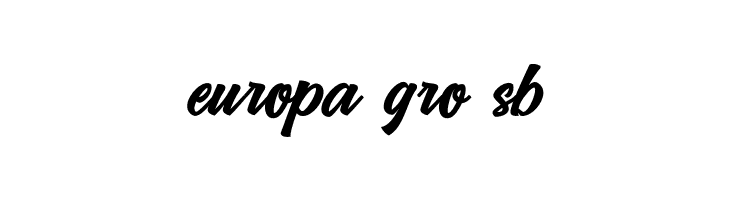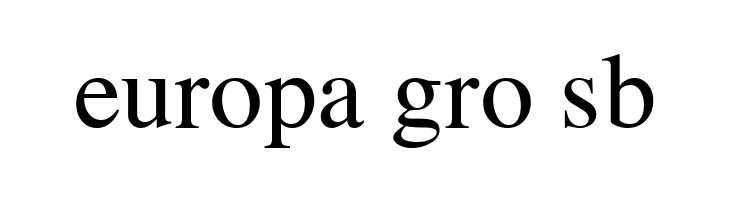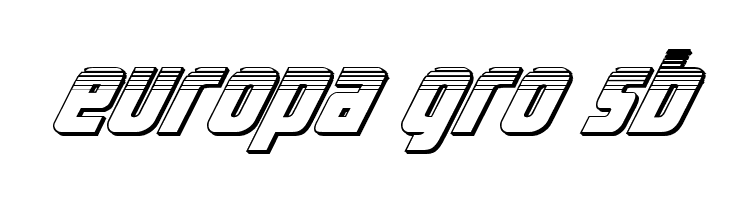
• Voyage Fantastique Platinum
A bold, three-dimensional font with a futuristic and dynamic style.
A bold, geometric font with a modern and assertive style.
• Voyager NBP
• Voyeur Regular
A bold, playful font with thick, rounded edges and a strong outline.
• Voynich
A decorative and mystical font with bold, flowing characters and unique embellishments.
• Voynich Hollow
A mysterious, hollow font with an ancient, coded appearance.
• Voyntea Personal Use
An elegant script font with intricate swirls and high contrast strokes.
• Vracter_Work
A stylish cursive script font with elegant, flowing strokes.
• Vrångö
A playful, decorative font with circular patterns forming each character.
• Vrångö
A playful, bubble-like decorative font with interconnected circular elements.
• Vraoum
A bold, dynamic font with a distorted, motion-inspired style.
• VremenaGrotesk
• VremenaGroteskBold
A bold, modern sans-serif typeface with a clean and geometric design.
• VremenaGroteskBoldItalic
A bold, italic sans-serif typeface with a modern and dynamic style.
• VremenaGroteskBook
• VremenaGroteskBookItalic
A modern, italic sans-serif font with a clean and dynamic appearance.
• VremenaGroteskItalic
A modern, italicized font with clean lines and a professional appearance.
• VremenaGroteskMedium
A modern, bold sans-serif font with clean lines and uniform strokes.
• VremenaGroteskMediumItalic
A modern, italic sans-serif font with balanced proportions and medium weight.
• VremyaFWF
A classic serif font with elegant strokes and medium contrast, ideal for sophisticated designs.
• VremyaFWF Bold